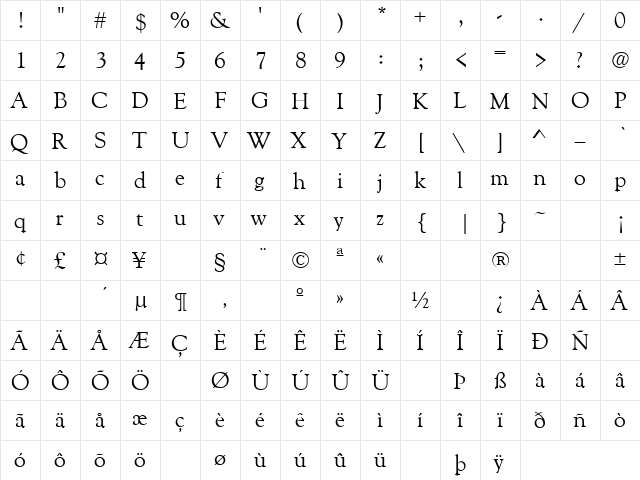
Reefer Head Woman 5 Regular
Design Context for Reefer Head Woman 5 Typeface
Reefer Head Woman 5 is a composed and adaptable typeface that performs quietly and consistently across a wide range of design contexts.